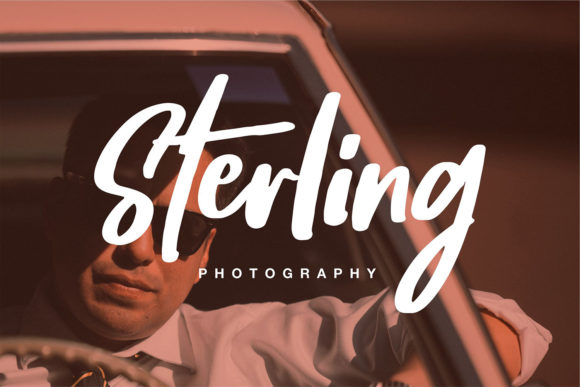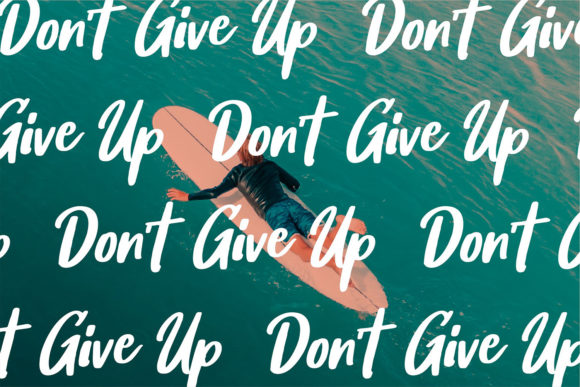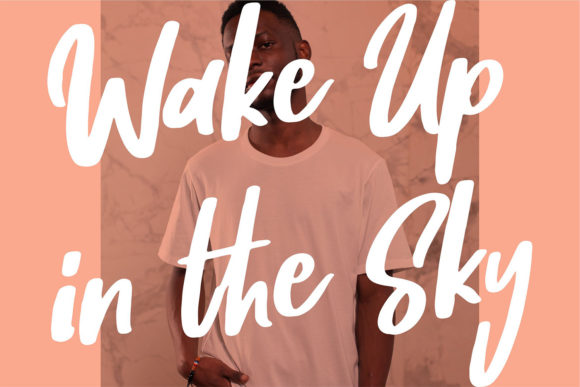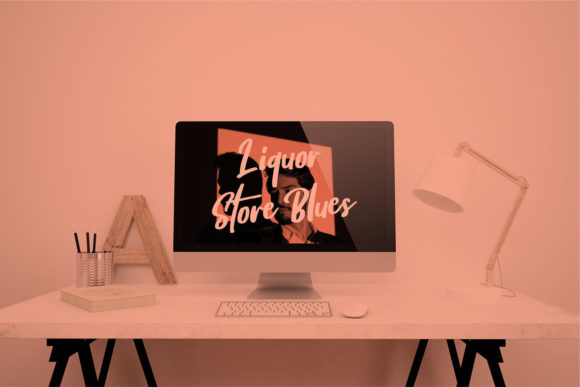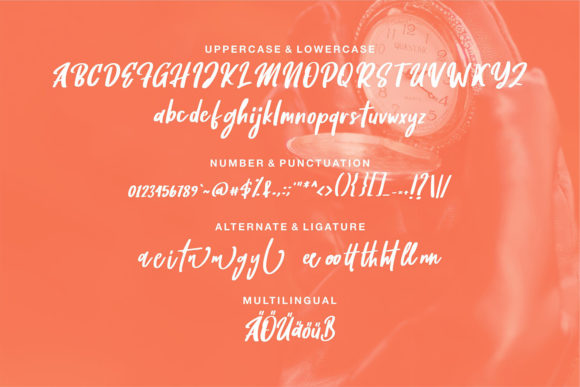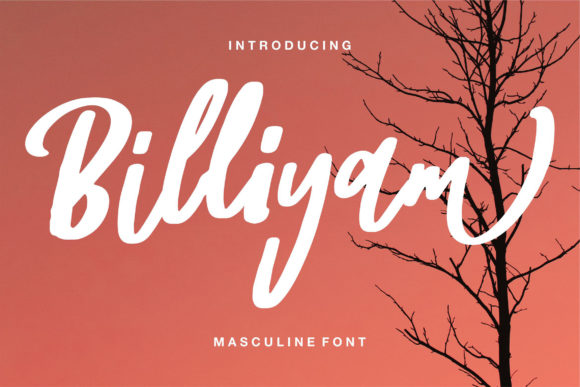
Discover the Charm of Billiyam Font: Elevate Your Designs with a Touch of Romance
Are you a designer or crafter looking for a font that can add a dash of romance and elegance to your projects? Look no further than the Billiyam Font. This enchanting handwritten font is a versatile script that can be used in a wide range of applications, from greeting cards and invitations to headlines and branding materials. With its unique charm and character, Billiyam Font is sure to make your designs stand out and leave a lasting impression.
The Characteristics of Billiyam Font
Billiyam Font is a beautifully crafted handwritten font that exudes a sense of romance and sophistication. Its elegant strokes and flowing curves make it perfect for designs that require a touch of whimsy and charm. The font features:
- Unique letterforms: Each letter in the Billiyam Font has its own distinct character, making it perfect for creating eye-catching headlines and titles.
- Flowing connections: The font’s connections between letters are smooth and fluid, creating a sense of movement and flow.
- High legibility: Despite its ornate nature, the Billiyam Font remains highly legible, making it suitable for use in a variety of applications.
Applications of Billiyam Font
The versatility of Billiyam Font makes it an excellent choice for a wide range of design projects, including:
- Greeting cards and invitations: Add a touch of romance and elegance to your greeting cards and invitations with the Billiyam Font.
- Headlines and titles: Use the font to create eye-catching headlines and titles for your blog posts, articles, and social media graphics.
- Branding and packaging: The Billiyam Font is perfect for creating unique and memorable brand identities, labels, and packaging materials.
- Digital and print media: Use the font in your digital and print media, such as brochures, flyers, and posters.
Why Choose Billiyam Font?
With so many fonts available, why choose Billiyam Font? Here are just a few reasons:
- Unique and distinctive: The Billiyam Font has a unique and distinctive style that will set your designs apart from the rest.
- Elegant and sophisticated: The font’s elegant strokes and flowing curves make it perfect for designs that require a touch of sophistication and refinement.
- Highly versatile: The Billiyam Font can be used in a wide range of applications, from digital media to print materials.
Tips for Using Billiyam Font
To get the most out of the Billiyam Font, here are a few tips:
- Use it sparingly: While the Billiyam Font is beautiful, it can be overwhelming if used excessively. Use it sparingly to create emphasis and add visual interest.
- Pair it with complementary fonts: Pair the Billiyam Font with complementary fonts to create a visually appealing contrast.
- Experiment with colors and textures: Experiment with different colors and textures to add depth and interest to your designs.
In conclusion, the Billiyam Font is a beautiful and versatile handwritten font that can add a touch of romance and elegance to your designs. With its unique characteristics, wide range of applications, and high legibility, it’s an excellent choice for designers and crafters looking to elevate their projects. Whether you’re creating greeting cards, headlines, or branding materials, the Billiyam Font is sure to make your designs stand out and leave a lasting impression.